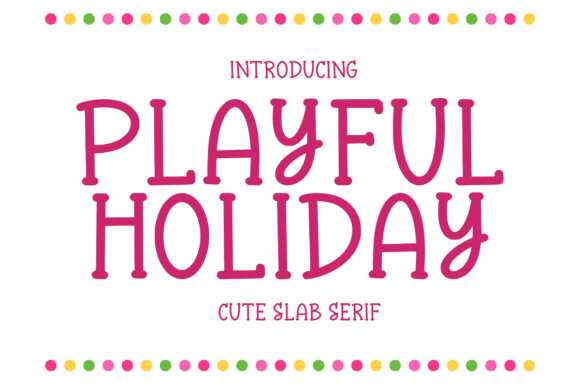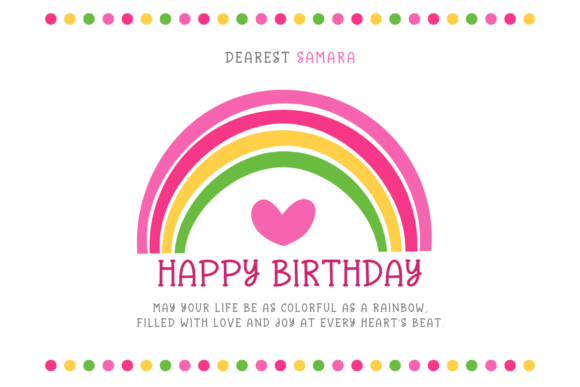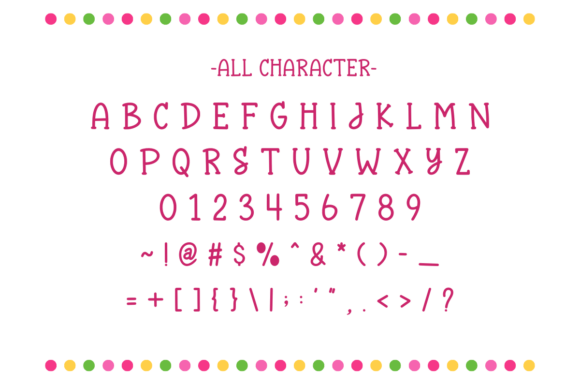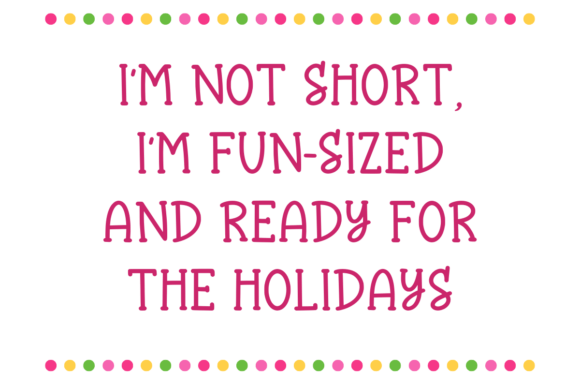
Playful Holiday Font
About the Playful Holiday Font
Discover the charm of Playful Holiday Font. This font is a perfect blend of modern aesthetics and classic appeal. Playful Holiday is a fun and playful slab serif font that’s perfect for crafts, planners, KDP, stickers, greeting cards, and more. With its cute and friendly style, it works great for Cricut, sublimation, and creative DIY projects. Ideal for crafters, designers, and makers!
Its bold, friendly forms are best suited for headlines, short blocks of text in promotional materials, and eye-catching packaging designs. Avoid using it for body text or lengthy paragraphs; its playful nature can become overwhelming in larger quantities. Consider it ideal for children’s books, holiday branding, or festive event promotions.
Playful Holiday pairs well with clean sans-serif fonts like Open Sans for a balanced contrast, or a more delicate script font such as Great Vibes to add a touch of elegance. For a more modern feel, pairing it with a geometric sans-serif like Montserrat could work well.
The overall personality is undeniably cheerful and approachable, making it a strong choice for brands that want to convey a sense of fun and lightheartedness.
Playful Holiday Font Usage Examples
Playful Holiday Font Example